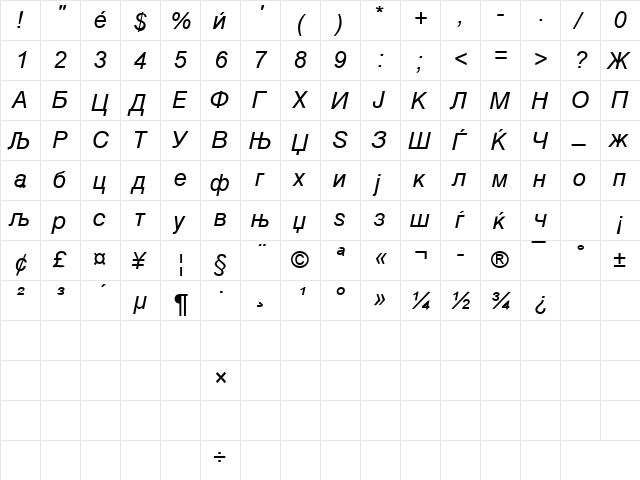
Macedonian Helv Italic
Design Context for Macedonian Helv Typeface
Macedonian Helv takes a measured approach to typography — its balanced proportions and neutral character make it a reliable workhorse for both digital and print work. Its italic angle brings a sense of urgency and motion to the letterforms.